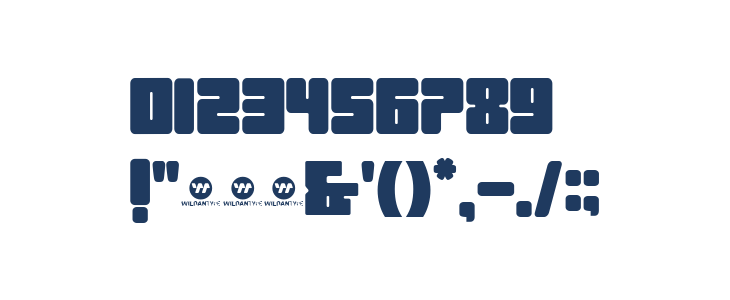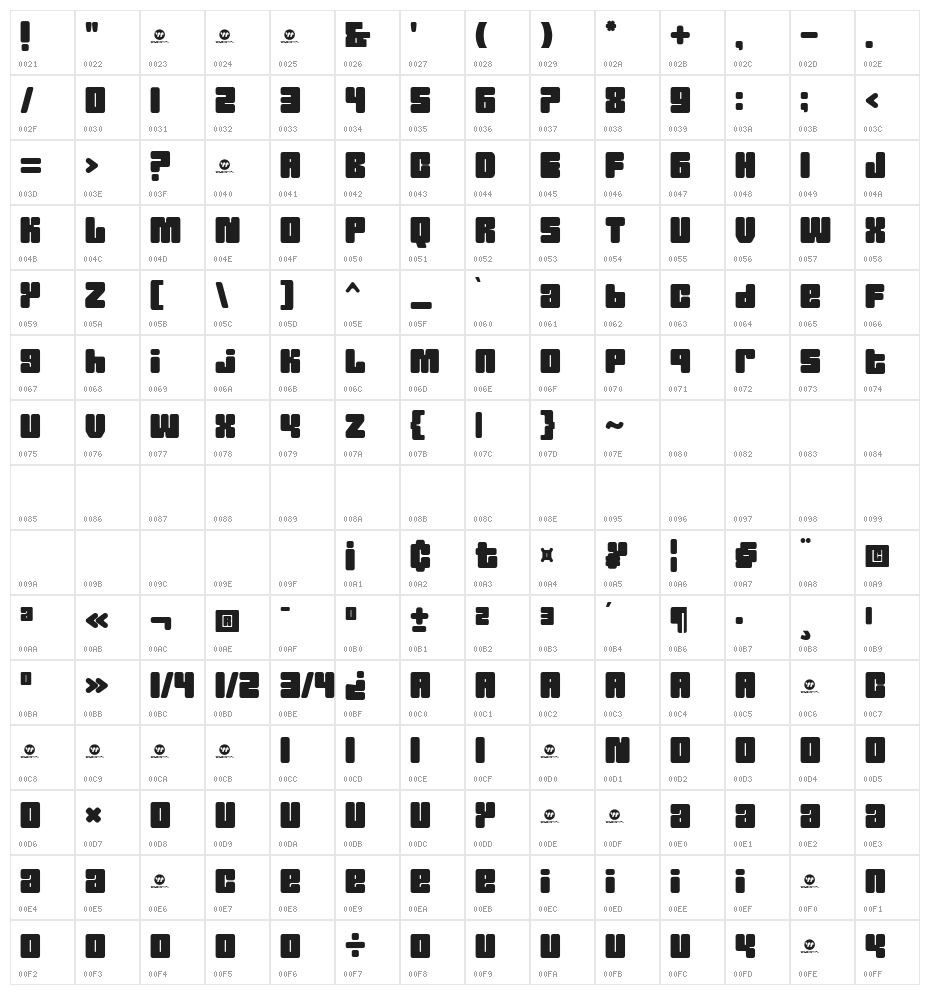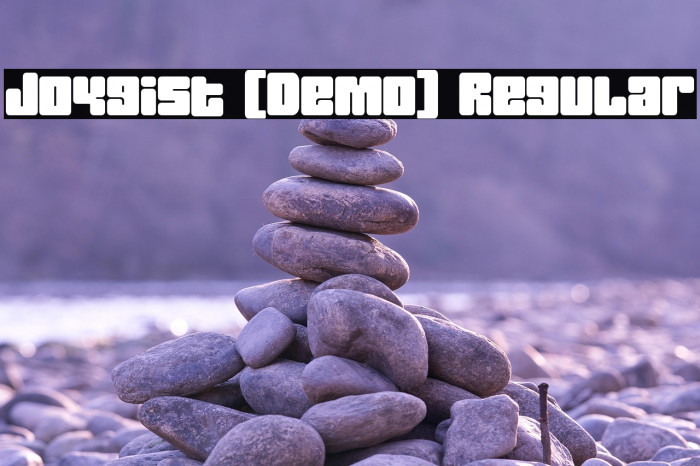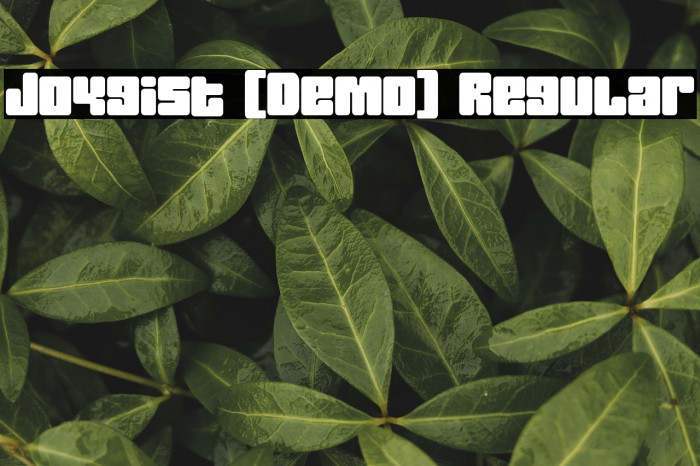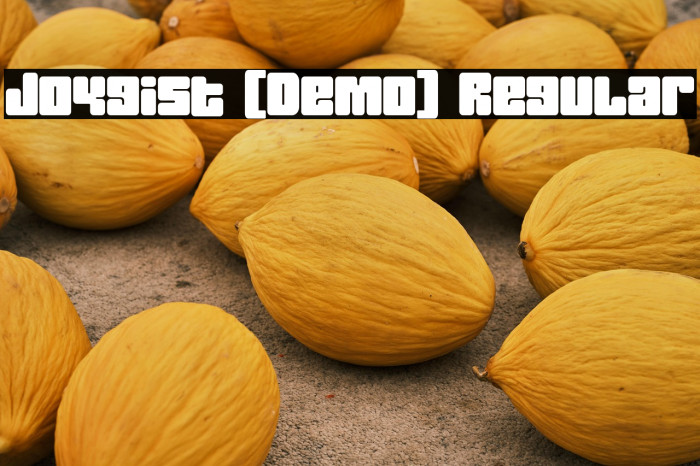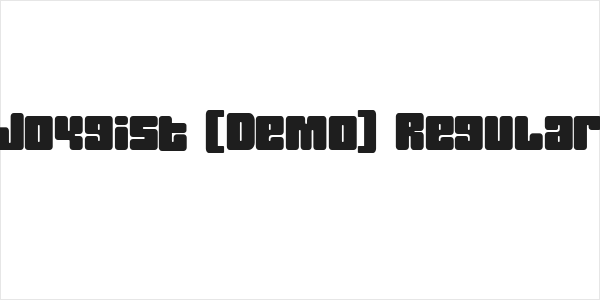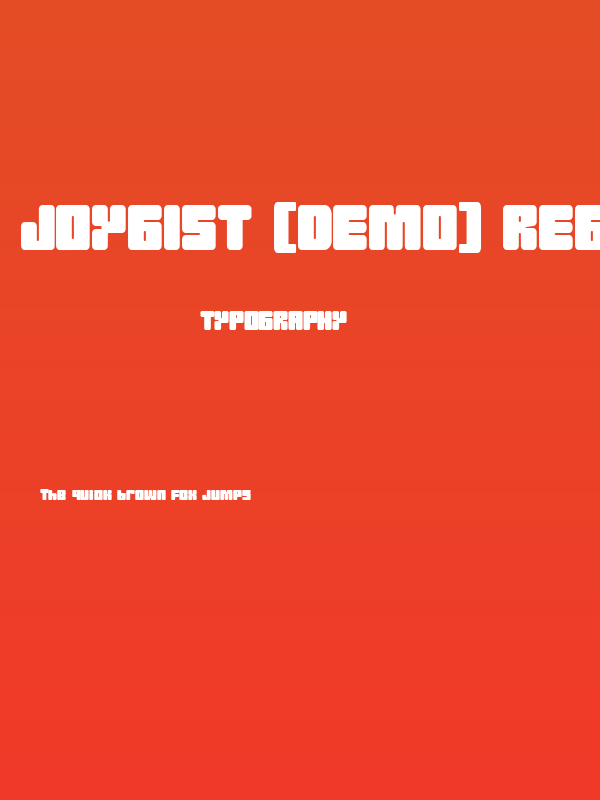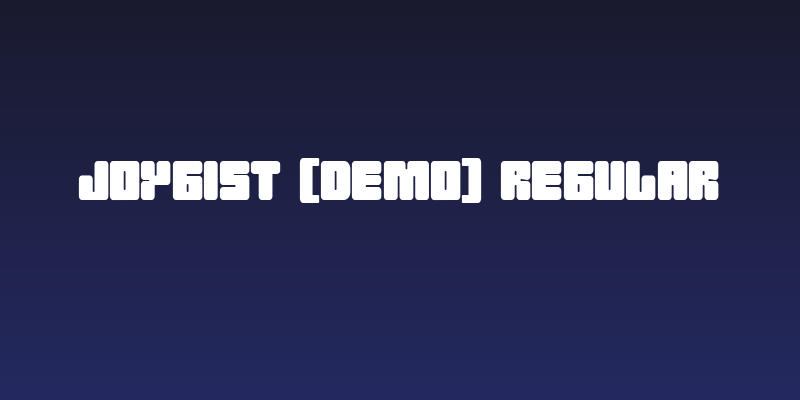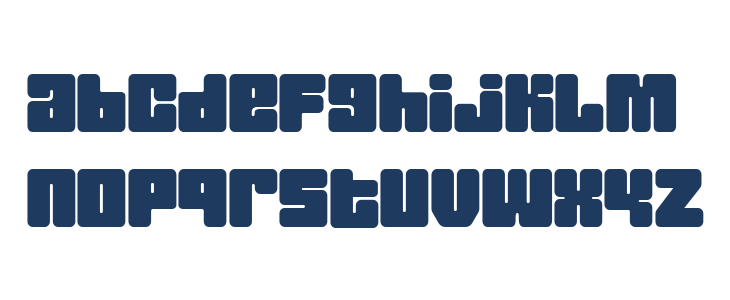
Joygist [Demo] Regular Font
Joygist [Demo] Regular Description
A bold, blocky sans-serif font with rounded corners and uniform stroke thickness, featuring uppercase, lowercase, numerals, and basic punctuation.
| Overall Style | Modern, Playful |
| Proposed Projects | Suitable for logos, headlines, posters, and branding that require a strong, playful presence. |